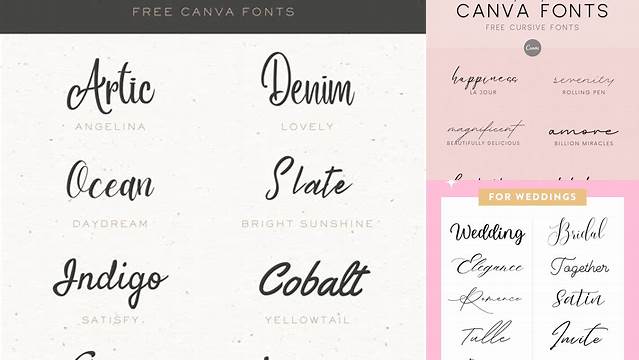
Canva Cursive Fonts: The Ultimate Guide To Stylish Typography
Hey everyone! Today, we're diving headfirst into the wonderful world of Canva cursive fonts! If you're anything like me, you're always on the hunt for that perfect font to make your designs pop. Whether you're crafting social media posts, presentations, or even your own personal branding, the right cursive font can add a touch of elegance, personality, and flair that's simply unmatched. So, grab your favorite drink, get comfy, and let's explore everything you need to know about using Canva cursive fonts to elevate your creative projects.
The Allure of Canva Cursive Fonts
Canva cursive fonts, with their flowing lines and graceful curves, have an undeniable charm. They evoke feelings of sophistication, creativity, and a personal touch that's hard to replicate with more rigid font styles. When used effectively, Canva cursive fonts can transform a simple design into something truly eye-catching and memorable. Think about it: a handwritten note feels more special than a typed email, right? Cursive fonts bring that same sense of personalization and authenticity to your digital creations. They're perfect for adding a touch of elegance to wedding invitations, creating a welcoming vibe for a blog header, or making your social media graphics stand out in a crowded feed. But guys, the beauty of these fonts goes beyond just aesthetics. The right cursive font can also communicate a specific message, whether it's a sense of luxury, playfulness, or trustworthiness. Selecting the right Canva cursive font is essential.
Choosing the Right Cursive Font
Choosing the right Canva cursive font can be a game-changer. It's not just about picking a font that looks pretty; it's about selecting one that aligns with your message and the overall tone of your design. Consider the context – are you designing for a formal event, a casual gathering, or a professional presentation? A more elaborate script might be perfect for a wedding invitation, but a simpler, more legible cursive font could be more appropriate for a business card. Before diving in, think about what you want your design to say. Do you want to convey elegance, playfulness, or a sense of tradition? Each Canva cursive font carries its own unique personality, so it's crucial to find one that complements your project's purpose. You'll find a variety of options within Canva; from classic scripts with loops and flourishes to modern, streamlined styles. When you start to pick your fonts consider their legibility. Always prioritize readability, especially for larger blocks of text. Don't choose a font that is too difficult to read, as this can frustrate your audience and detract from your message. Experiment with different combinations. Mixing cursive fonts with sans-serif or serif fonts can create a beautiful and balanced design. Just be sure to use these combinations sparingly to maintain visual harmony.
Finding the Perfect Cursive Font in Canva
So, how do you actually find these amazing Canva cursive fonts, you ask? It's super easy! Canva has a vast library of fonts, including a great selection of cursive options. Let's walk through the process: First, open your Canva design and select the text tool. From there, you can simply type in your text and start experimenting with different fonts. Browse through the font list, and you'll see a wide array of options, from classic scripts to more modern takes on cursive. You can use the search bar to filter by keywords. Type in "cursive", "script", or "handwritten", and Canva will narrow down the selection for you. This is a massive time saver, especially when you have a specific style in mind. Pay attention to the font preview; it gives you a sense of how the font will look with your text. This preview is key to understanding the font's overall appearance and how it will integrate with your design. Don't be afraid to experiment with different fonts. Try out several Canva cursive fonts to see what works best for your project. You can try your cursive text in the background or combine them with a bold font for the main title. Canva has a vast selection of cursive fonts, so don't be afraid to mix and match and explore all the options.
Using Canva Cursive Fonts Effectively
Okay, you've found your perfect Canva cursive font. Awesome! Now, how do you use it like a pro? One of the most important things is to ensure readability. While cursive fonts are beautiful, some can be difficult to read, especially in smaller sizes. Make sure your text is large enough and that there's enough space between the letters. This will ensure your audience can easily understand your message. Consider the context of your design, too. Cursive fonts work best for headlines, short phrases, or special elements. Avoid using them for large blocks of text, as it can strain the reader's eyes. Mixing and matching with other font styles can be a great way to create visual interest. Pair a Canva cursive font with a clean, sans-serif font for body text or a bold, serif font for headlines. This creates a balanced design that's both visually appealing and easy to understand. Pay attention to the overall design aesthetic. Does your cursive font match the other elements of your design? Does it enhance the color palette, the images, and the overall tone? Remember, your goal is to create a cohesive and effective design. To add more personality and flair, Canva provides many customization options. You can change the font size, color, spacing, and alignment, allowing you to tailor the font to your specific needs.
Canva Cursive Fonts for Various Design Projects
Canva cursive fonts are incredibly versatile and can be used in a wide range of design projects. Let's explore some ideas:
Canva Cursive Fonts for Social Media Graphics
Social media is all about grabbing attention, and using the right Canva cursive fonts can make all the difference. They're perfect for creating eye-catching headlines, quotes, and captions. Use a bold cursive font to highlight a motivational quote on an Instagram post or add a touch of elegance to a Facebook ad. When designing for social media, it's all about creating a balance between aesthetics and readability. Choose a font that's visually appealing but also easy to read, especially on smaller screens. You can experiment with different font combinations. Pair a cursive font with a clean sans-serif font for the body text to create a dynamic and engaging graphic. Always match the font to your brand. The font should reflect your brand's voice and personality. If your brand is sophisticated, then opt for a more elegant script. If your brand is fun and playful, then choose a more casual handwritten style. Always remember the size of your font. Make sure your font is large enough. Text needs to be legible, even for people who might quickly scroll through your post. Keep the font size and style consistent throughout your social media channels. This will help to create a recognizable brand. Consider the use of color as well. Contrast is a must. Make sure your text stands out against the background. You can also play with color gradients, and even add drop shadows to create depth.
Canva Cursive Fonts for Invitations and Cards
Need to design some invites or cards? Canva cursive fonts are your best friend! They're absolutely perfect for adding a personal and elegant touch to invitations for weddings, birthdays, or any other special occasion. Using Canva cursive fonts on invitations evokes a sense of style. Pick a beautiful script font to create an inviting and sophisticated tone. When creating an invitation, make sure you pick a style that matches the event. Choose a more formal and classic script for a wedding. For a birthday party, you can opt for a more playful and casual handwritten style. Ensure the readability of the fonts. While cursive fonts are beautiful, some can be hard to read. Prioritize clarity. You'll want to make sure that the most important information, such as the date, time, and location, is easy to find. Don't clutter the design. Less is often more. Keep the design clean and simple, with a focus on the text. Ensure that the text and design are complementary. Use a font color that contrasts the background of your invitation. Experiment with colors to match the theme of your invitation. Canva has a vast library of cursive fonts. Explore the variety of options to find the perfect one for your event. You can find fonts with swashes, flourishes, and other decorative elements.
Canva Cursive Fonts for Branding and Logos
Want to make your brand stand out? Canva cursive fonts can play a crucial role in creating a memorable brand identity. They're great for logos, headers, and other branding materials. Choose a cursive font to create a logo that is both unique and representative of your brand's personality. When choosing a font, consider the overall image of your brand. A more elegant script may work for a luxury brand. For a casual, approachable brand, a more handwritten style will work best. Make sure your font complements your brand's colors, imagery, and overall aesthetic. You'll want to stay consistent across all branding materials. Use the same font across your website, social media, and print materials. To enhance the visual appeal, consider adding some elements. These could be swirls, and other decorative elements. But don't overdo it. Ensure the font is legible in various applications. Make sure your logo or branding elements look great on business cards, websites, and other materials. The size of your font is important. Make sure the font is legible, even when used in smaller sizes. Don't underestimate the power of a well-chosen cursive font. It can truly transform the way your brand is perceived. The key is to match the font with your brand's personality and values.
Canva Cursive Fonts for Posters and Flyers
Posters and flyers are all about making a statement. With the right Canva cursive font, you can grab attention and convey your message. They're great for adding a unique touch to your designs and making them visually appealing. Make sure your message is clear. Keep the text concise. Use a legible font for the main content. Consider the layout. Use a cursive font for headings, quotes, or special elements. The font should complement the overall design. Choose a cursive font that matches the style and tone of your poster or flyer. If you are creating a flyer for a concert, then a fun and playful handwritten style can work well. If you are creating a poster for an art exhibition, then a more elegant script might be best. You can mix different fonts. This can create a dynamic design. Ensure the fonts work well together. Don't clutter the design. Make sure your poster or flyer is easy to read and understand. Use colors that complement each other. Ensure your design is visually balanced and easy to understand. Always preview your design. Print a sample and make sure the colors and text look great. Experiment with different font combinations and layouts. Canva's vast font library will help you achieve this.
Canva Cursive Fonts: The Psychology of Font Choice for Marketing
In marketing, choosing the right Canva cursive font is all about understanding how fonts influence consumer behavior. Each font style carries different associations. A classic script evokes feelings of luxury. A handwritten style can create a sense of authenticity. You can use this to create effective marketing material. Consider your target audience. Your font should be relevant to your target audience. Make sure that the font is legible and easy to read. Remember, fonts can evoke emotions and influence how your audience sees your brand. Using the right font will help you boost your brand image. Your design will be more impactful. By understanding the psychology of fonts, you can use it for your advantage.